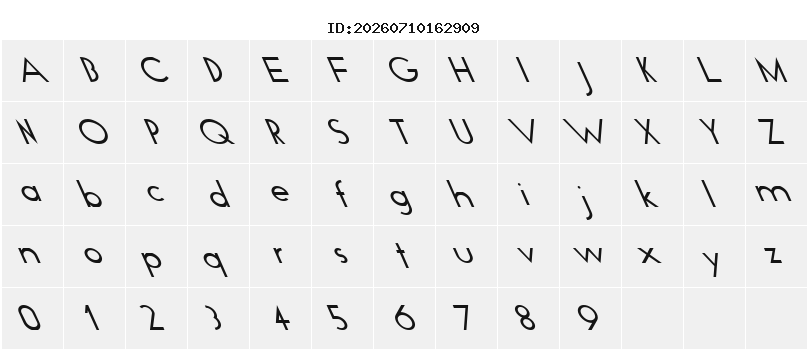
Geo Plain Lefty Preview
• Font Name: Geo Plain Lefty
• Full Font Name: Geo Plain Lefty
• PostScript Name: GeoPlainLefty
About Geo Plain Lefty.ttf
Geo Plain Lefty.ttf is a modern, elegant sans-serif font designed for ultimate readability and visual harmony. Perfect for branding, headlines, web design, and print materials.